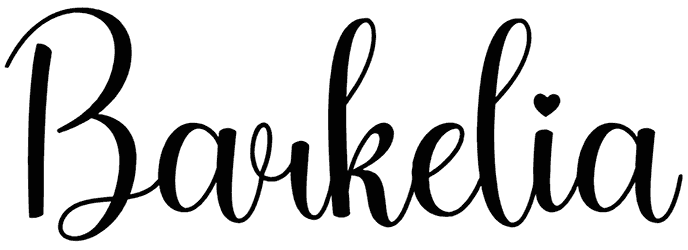
Barkelia Font
Do you like bearing a design with a lovely hand-lettering font? Take a look at this love font with a nice twisted letterform. Barkelia is a modern and delightful font for many designs. With the full support of characters, this handwritten font is an ideal option for flyers, magazines, foregrounds, and a lot more others the same.